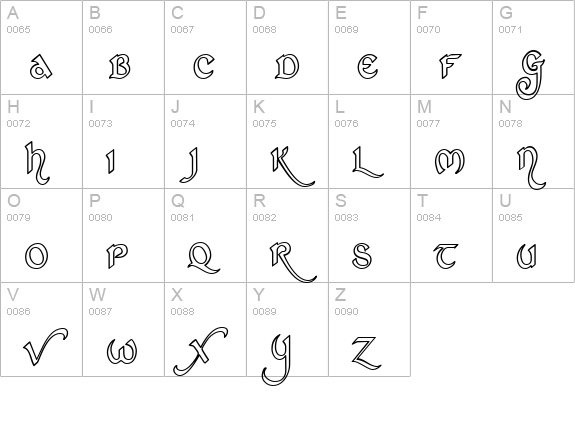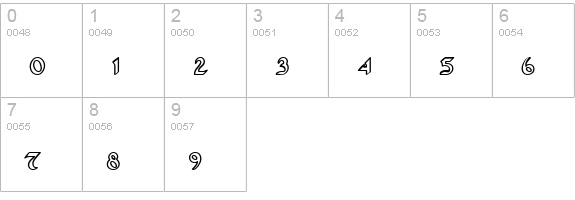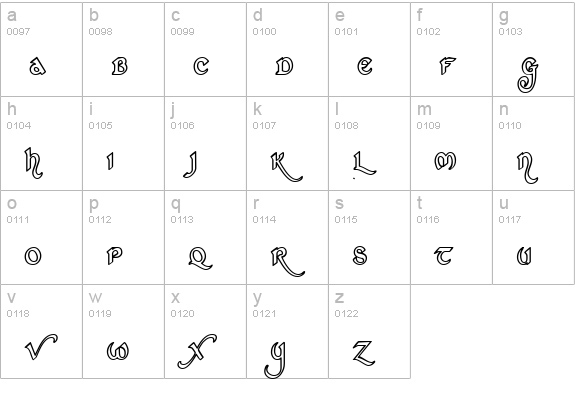
St Charles Hollow Font Details
St Charles Hollow font is a unique and stylish typeface that will add a touch of elegance and sophistication to any design project. With its delicate and intricate hollow letterforms, this font is perfect for creating eye-catching headlines, logos, and invitations. What sets St Charles Hollow font apart is not only its stunning design, but also the fact that it is available for free. Yes, you read that right! This font can be downloaded for free at FontsMarket.com, making it accessible to designers, artists, and enthusiasts without breaking the bank. The beauty of St Charles Hollow font lies in its versatility. Whether you're designing a vintage-inspired poster, a modern business card, or a chic wedding invitation, this font will effortlessly elevate your design to new heights. Its hollow letterforms create a sense of lightness and elegance, while still maintaining legibility and readability. With a wide range of characters, including uppercase and lowercase letters, numbers, and punctuation marks, St Charles Hollow font offers endless possibilities for creative expression. Its clean lines and graceful curves make it a truly timeless typeface that can be used in a variety of design styles. So why wait? Download St Charles Hollow font for free at FontsMarket.com and unleash your creativity today. Whether you're a professional designer or a hobbyist, this font is sure to become a valuable addition to your font library. Don't miss out on this opportunity to enhance your designs with the beauty and versatility of St Charles Hollow font.